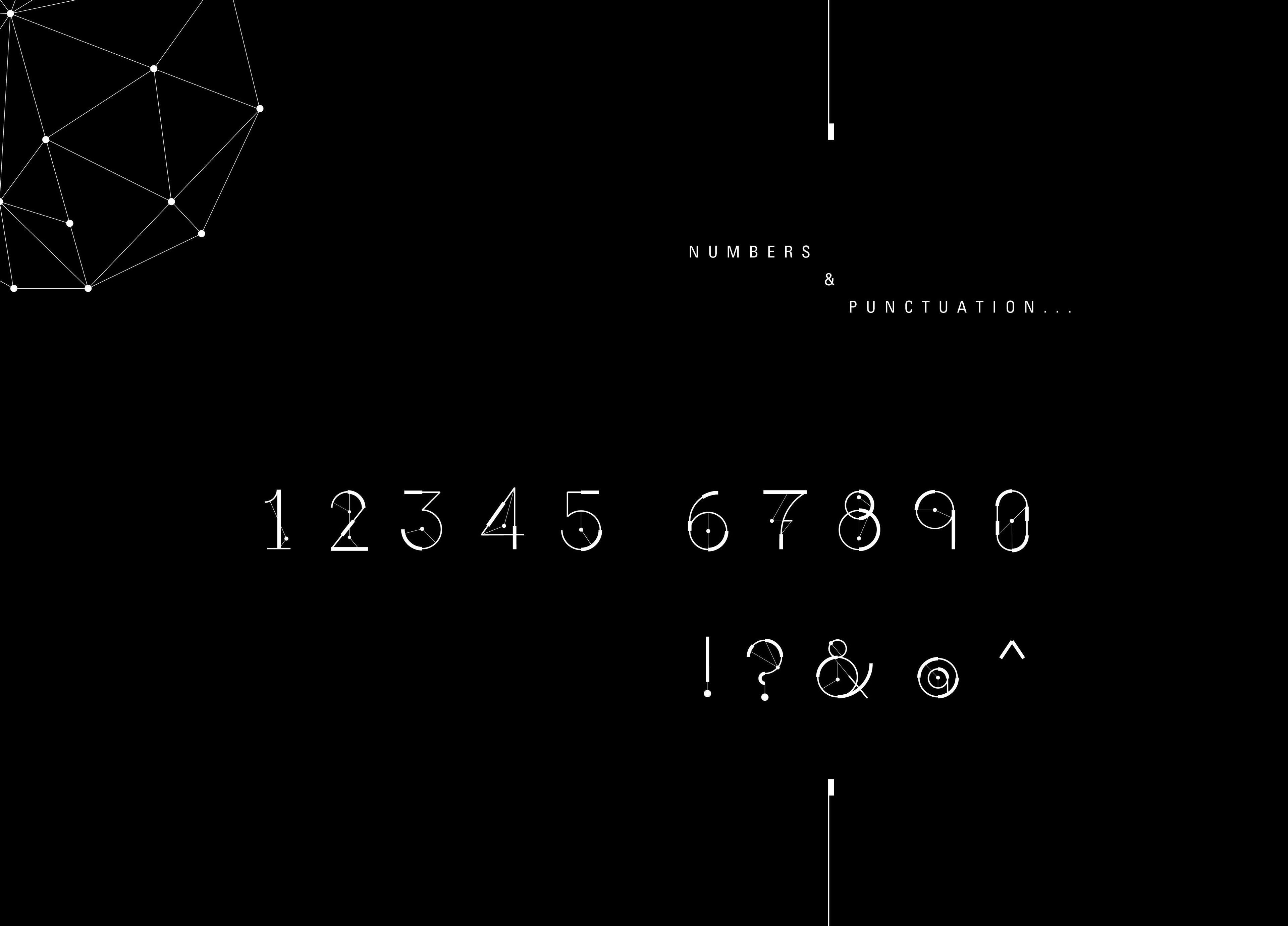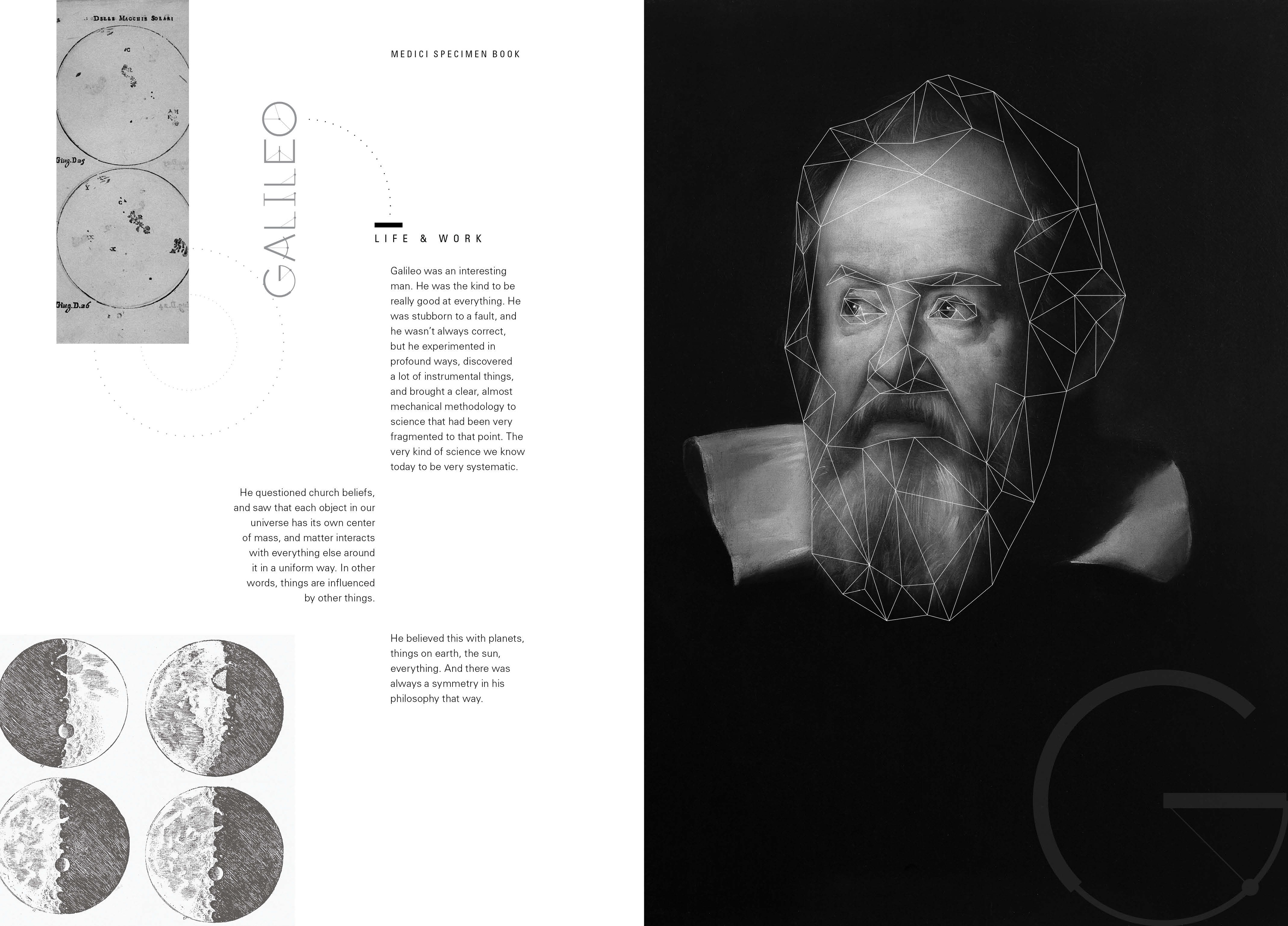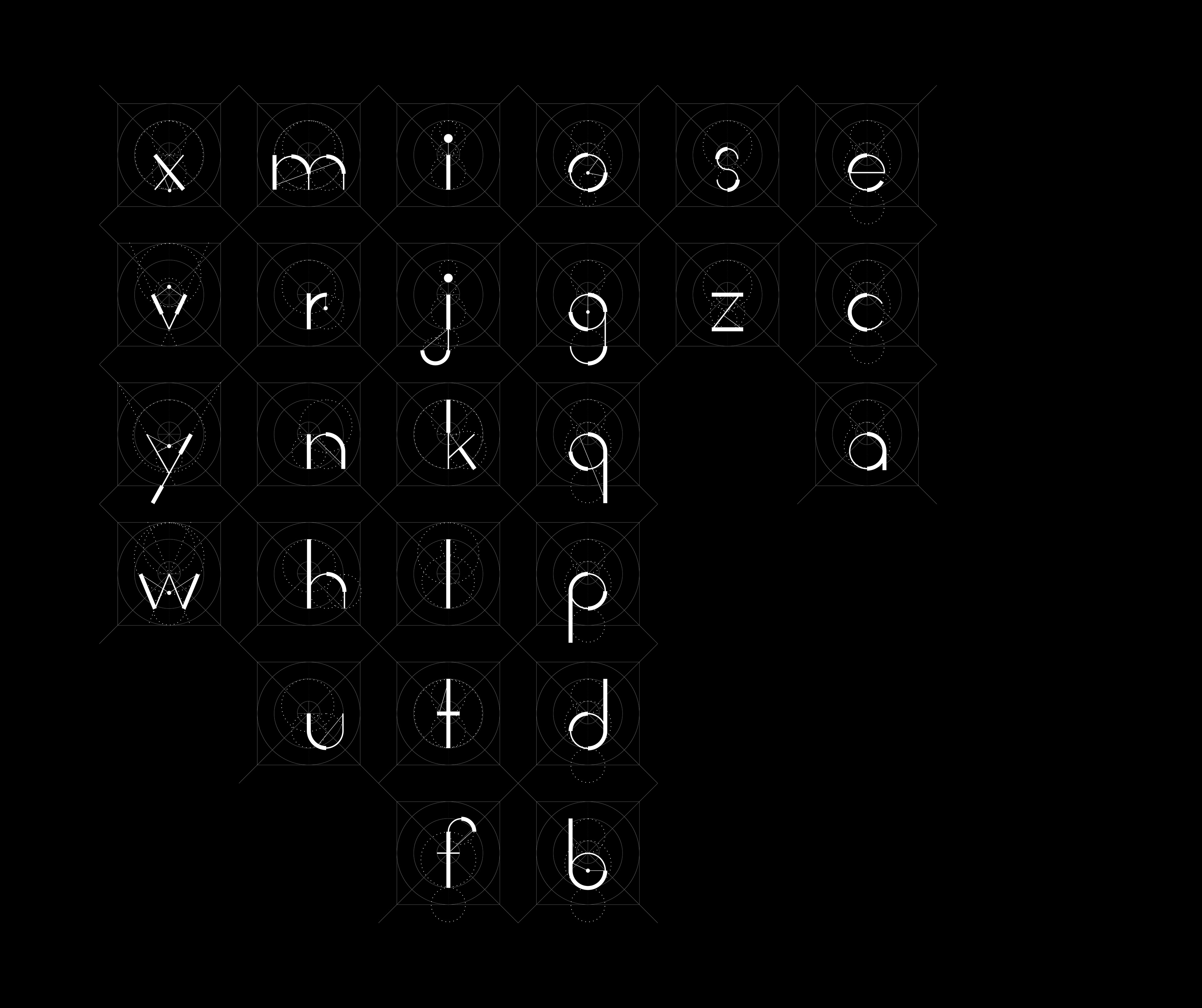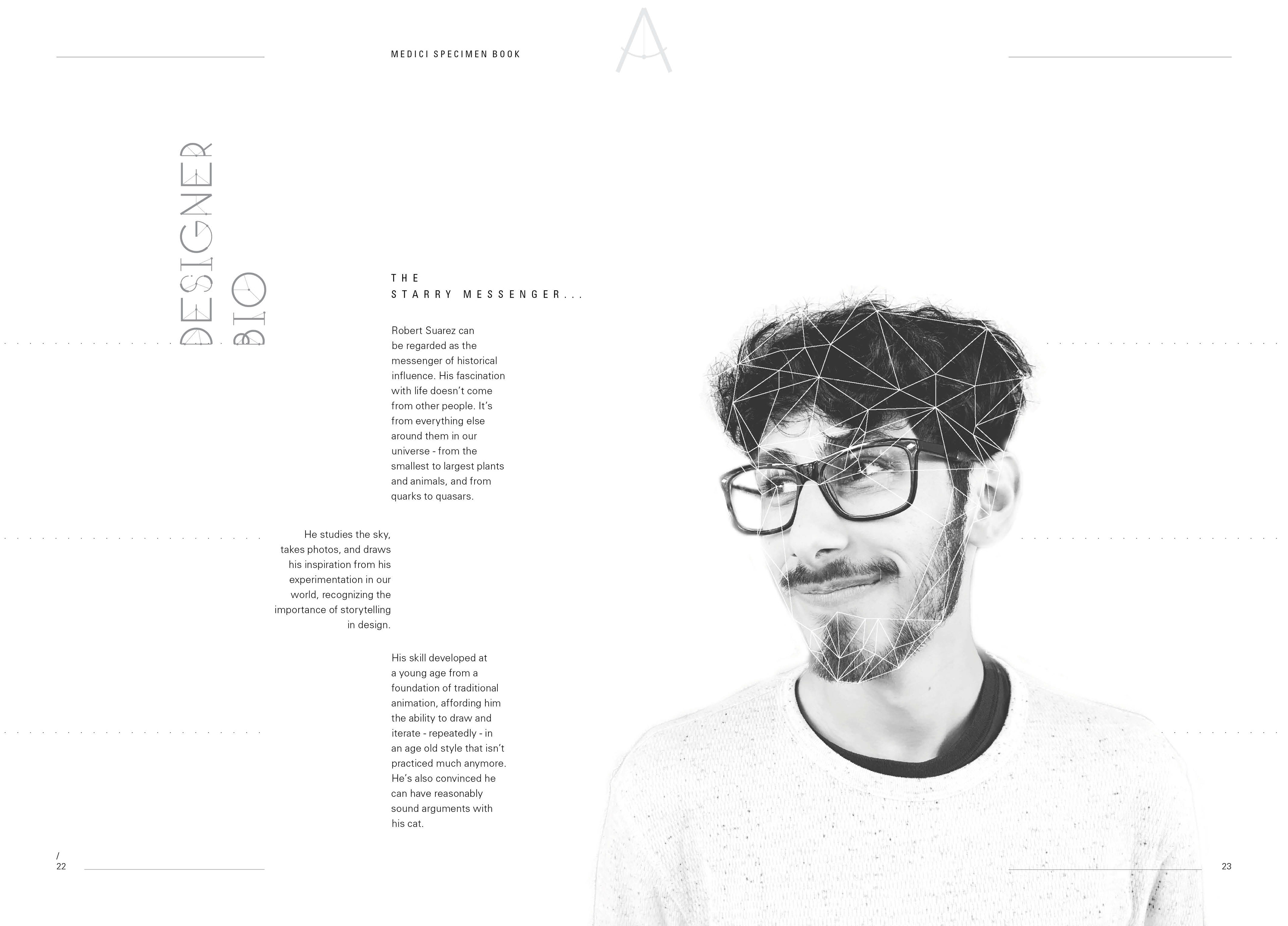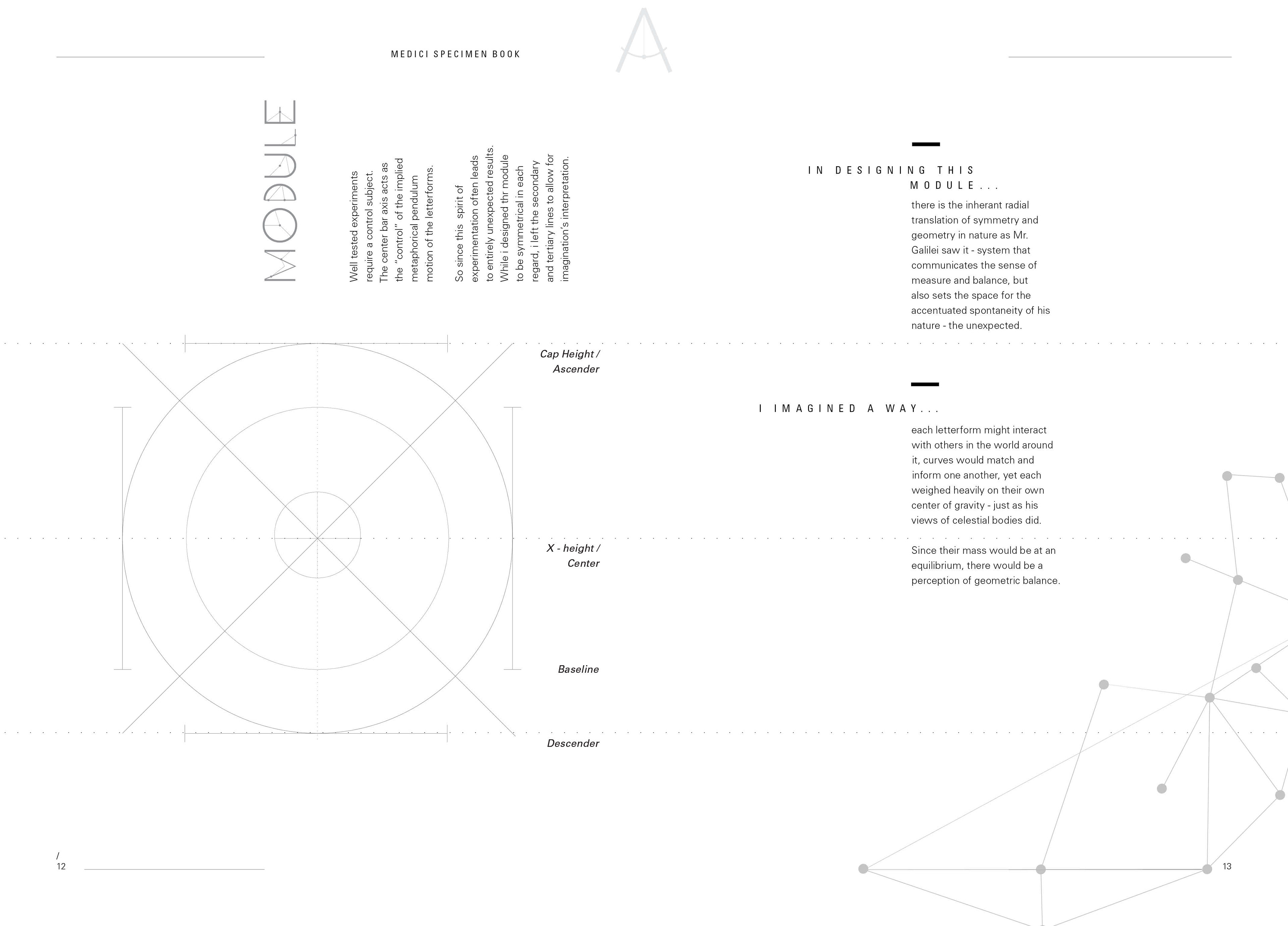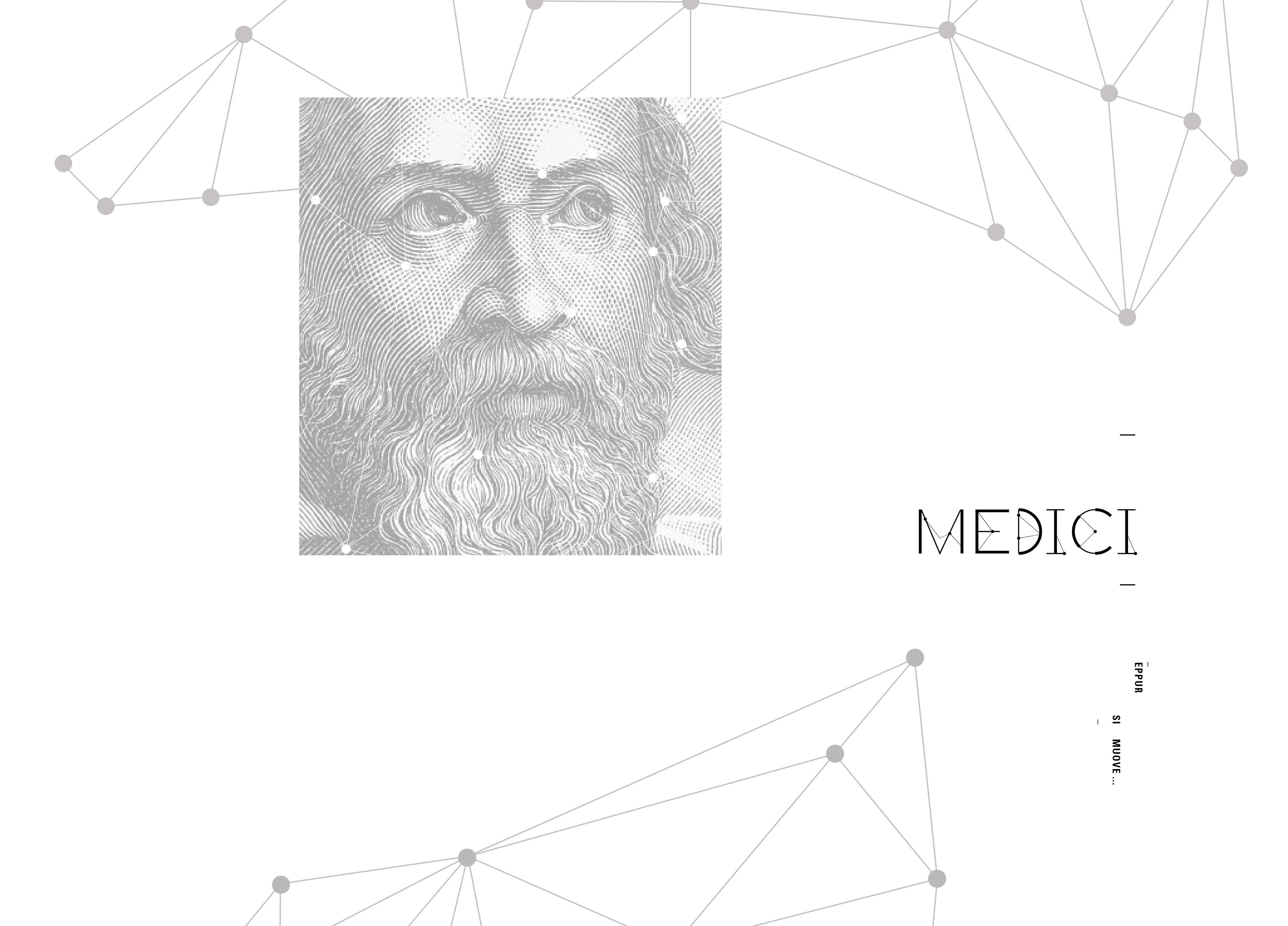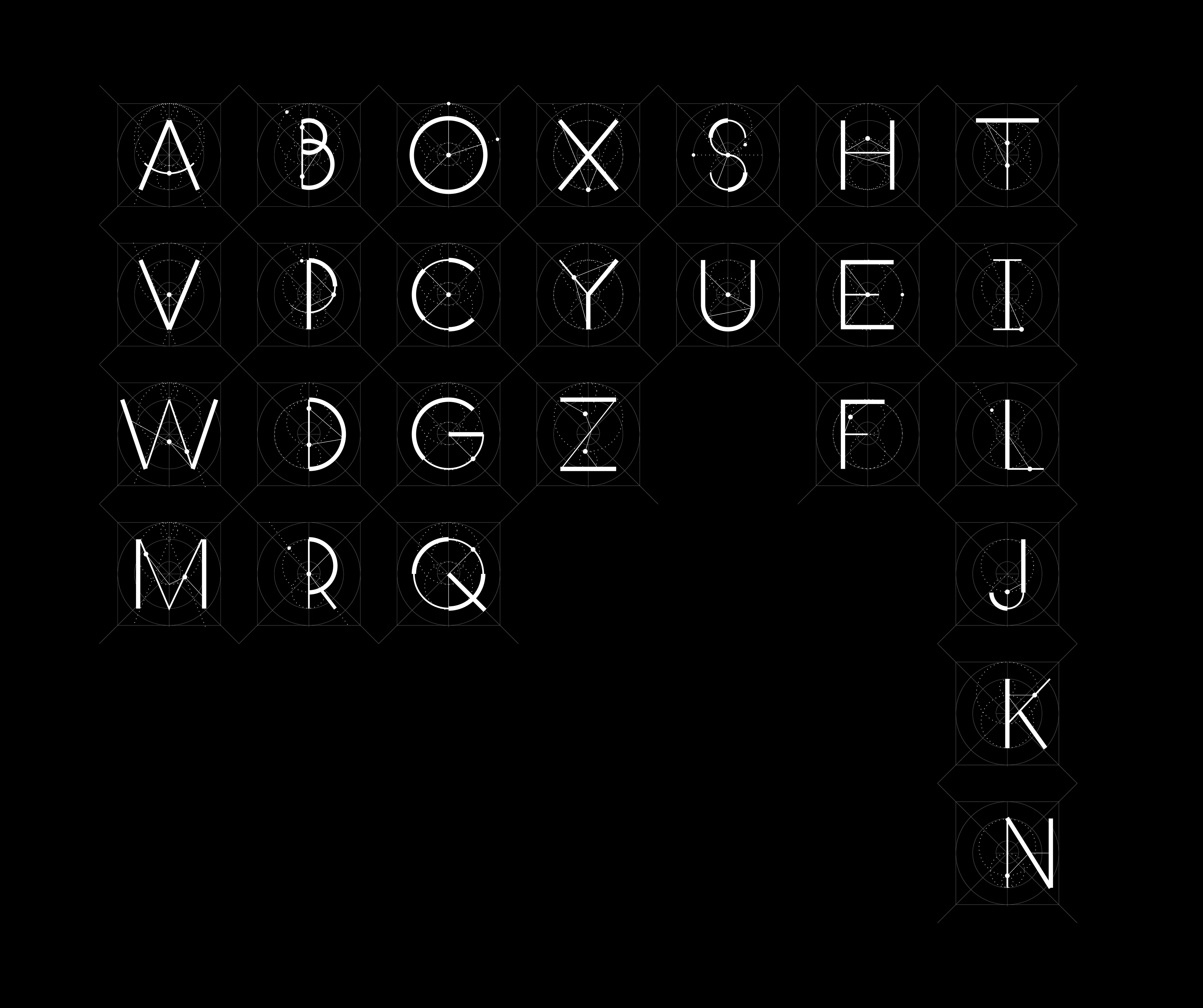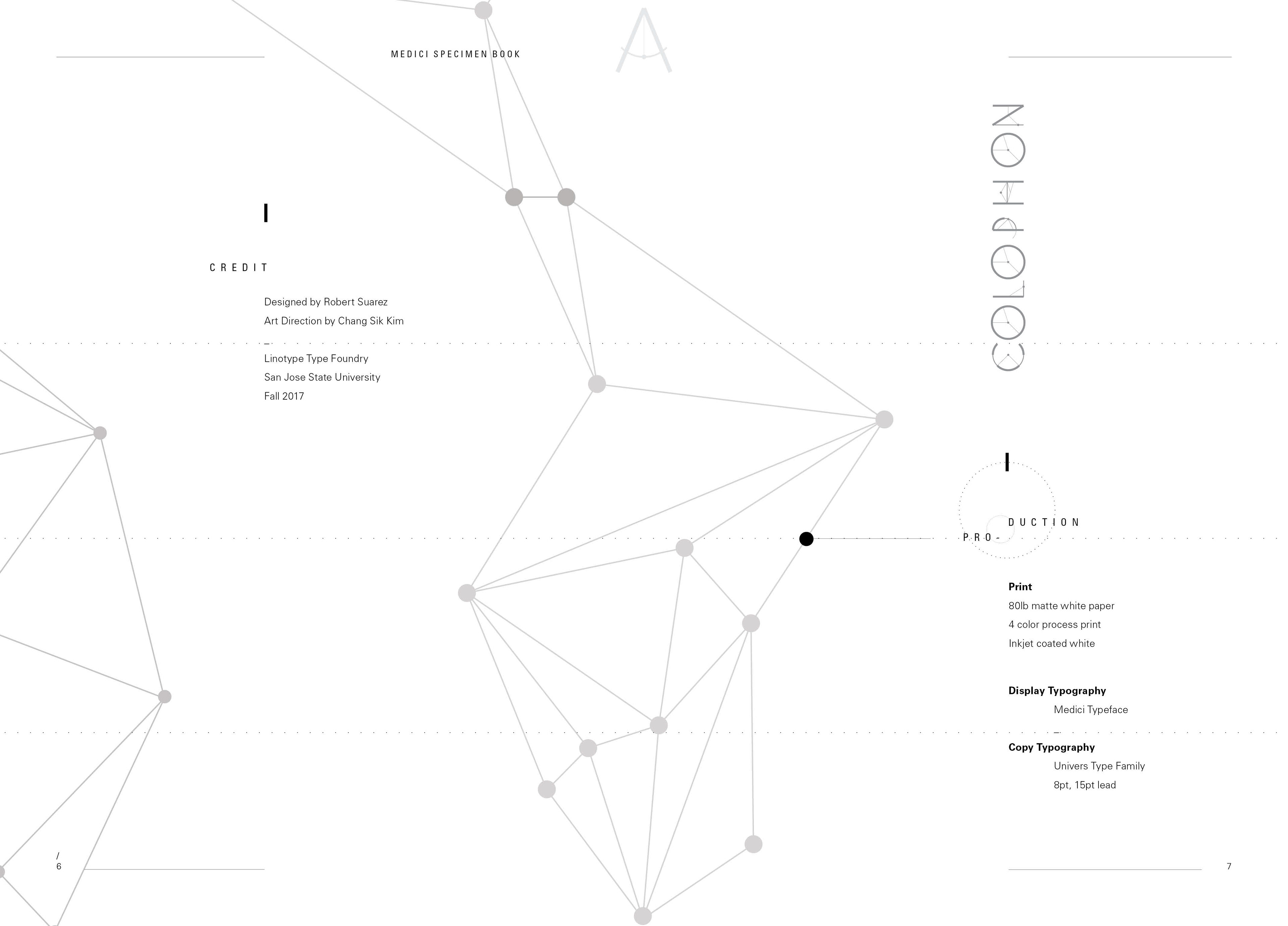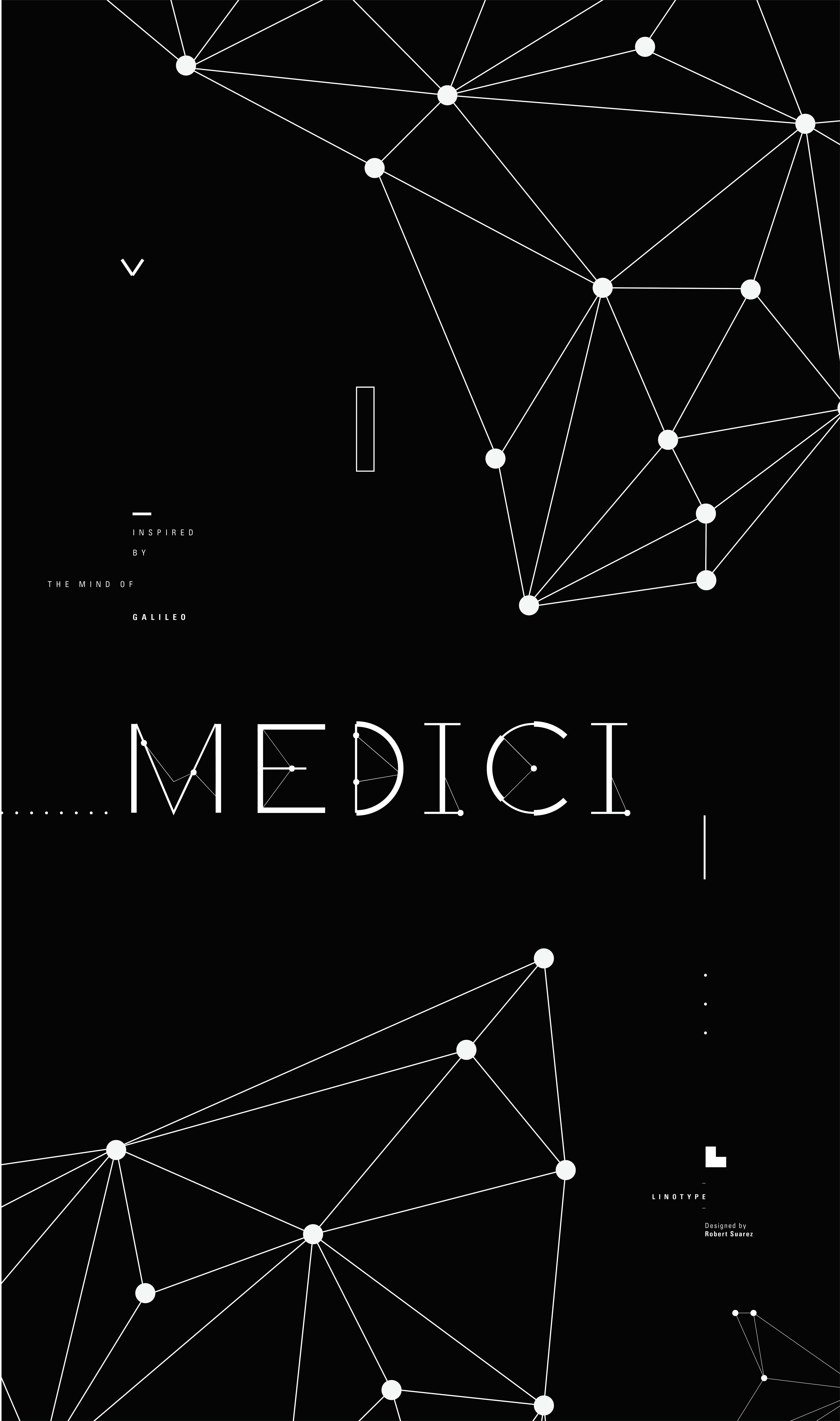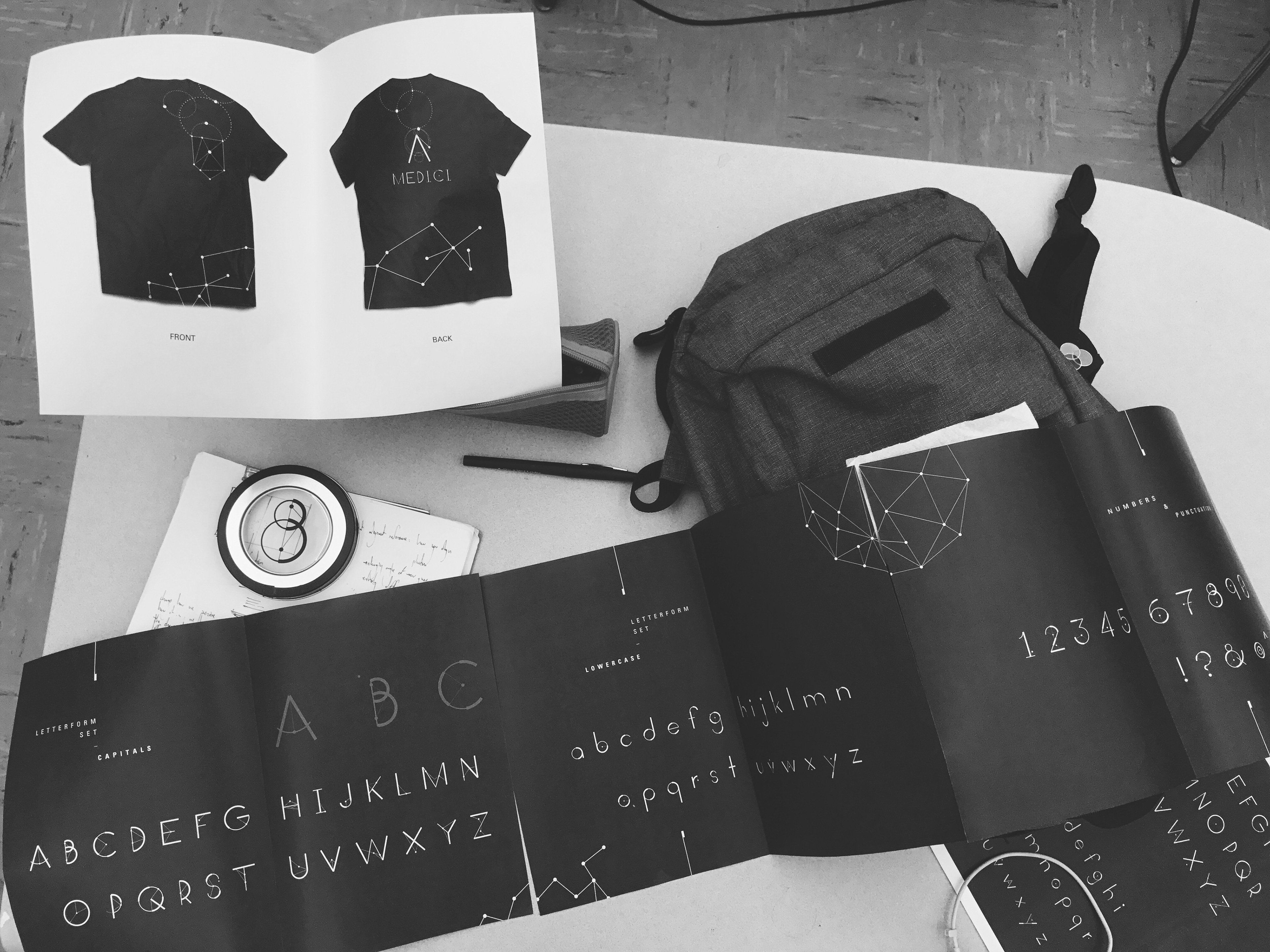
Medici
Medici is a display typeface inspired by the mind and achievement of Galileo Galilei.
PROBLEM
This project is about the experimentation of letter form/structure and conceptual type style design. We set a strategical development of a promotional application package for a font foundry (company) as a hypothesis project. Create a typeface based on research, analysis, and experimentation of fundamental lettering principles. You are encouraged to enhance your creative thinking process for letter design and visual identity design. Your draft typeface should emphasize symbolic and meaningful representations of a person or his/her work's characteristics.
Based on visual principles and anatomy of letter form and book design as a verbal and visual communication media, explore the expression of the identity of a famous figure and their works using a range of communication forms based on a letter structure. Translate an abstract idea or image (characteristic) of the person into visual form, making an obvious and powerful communication vehicle. Realize of hierarchy and symbolism in visual communication. Find a way to make a planned structure of a page, and develop the ability to produce a complex composition.
SOLUTION
Medici is a display typeface inspired by the mind and achievements of Galileo Galilei. The deliverable consisted of a finished, useable typeface, as well as a few elements of design collateral: a 6x9 specimen book printed and bound, a large format poster, and t-shirt design. Compositionally, interdependency of shapes, and vast use of negative space throughout the project allowed for the essence of the deep night sky allegory to be conveyed through concept.
All for the Concept...
The letterforms were designed outside of a traditional type module, instead experimenting with a radial grid module to design each letterform out of specific characteristics of several letter groupings. Rigid base shapes form the structural foundation of the letterforms, while complimentary accent shapes inform the eccentricity of Mr. Galilei's tenacity with his findings. Spontaneous as it may seem, each "orbital" motion of dots follows a very specific path, counter-balancing the forms themselves as planetary satellites would. I imagined a way each satellite would be bound by its parent shape as it fell continuously in motion.
Letterforms
I started with A, B, and C. Unorthodox as it is for designing a typeface design system, the first three letters of the alphabet had the 3 of the major letter grouping structures I needed to capture the mood and structure of the typeface, and they'd later come to staple its legibility as a display typeface.
letters are grouped by base structures.
____
Type Specimen Book
The type specimen book acted as a vessel to describe the typeface anatomy in greater detail, and explicate the conceptualization of the entire project. The book spreads are laid below.
20 x 34 Poster
The poster was designed to be easily recognized as a part of the set of design materials.
T-Shirt Design
The shirt required a wraparound design element engaging both sides. I perpetuated the idea with these constellations engaging the would-be viewer.
Craft
Some images of conceptual development, from the abandoned 3-dimensional components.
creating a perfect-binding for the specimen book.
book production.
an idea of how mechanical tools inspired letterform design.
and a glimpse of the work that inspired me!